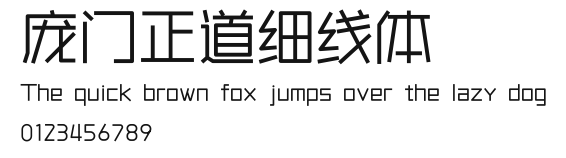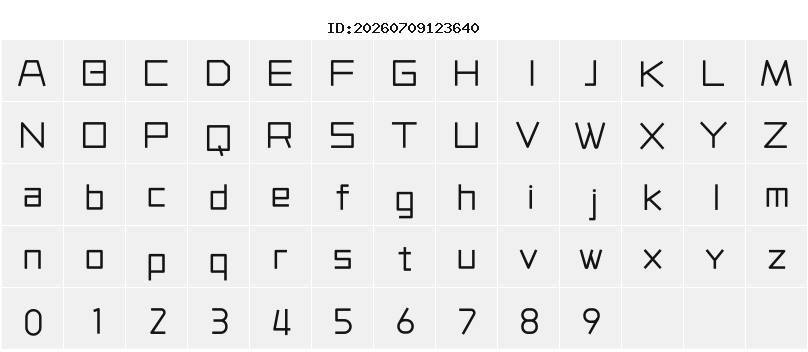
庞门正道细线体 Preview
About 庞门正道细线体.ttf
庞门正道细线体.ttf is a modern, elegant sans-serif font designed for ultimate readability and visual harmony. Perfect for branding, headlines, web design, and print materials.